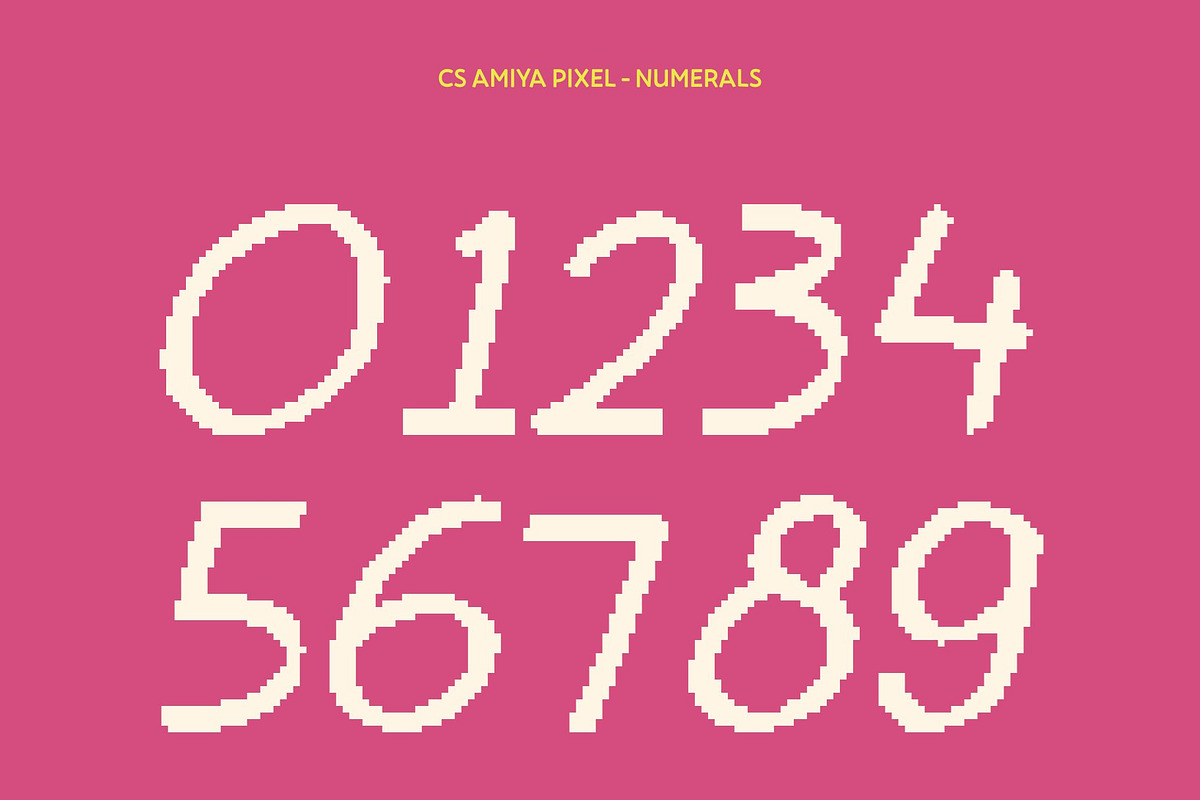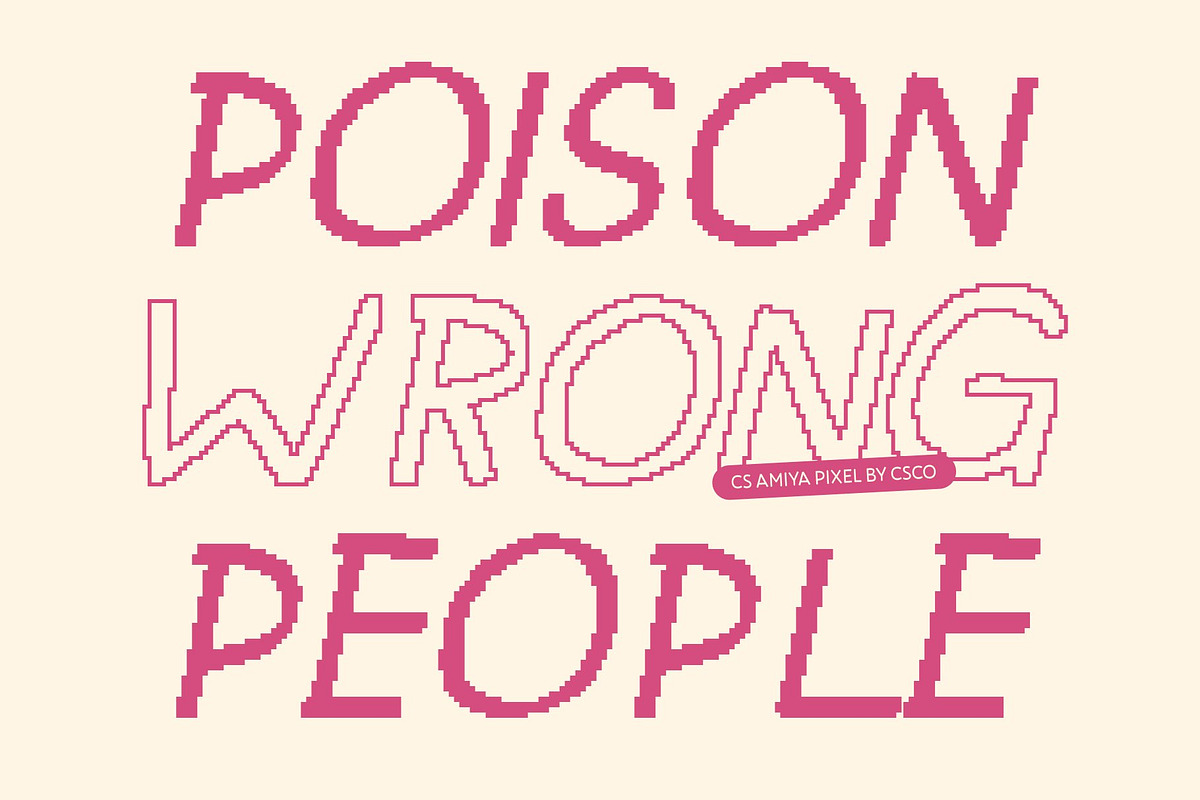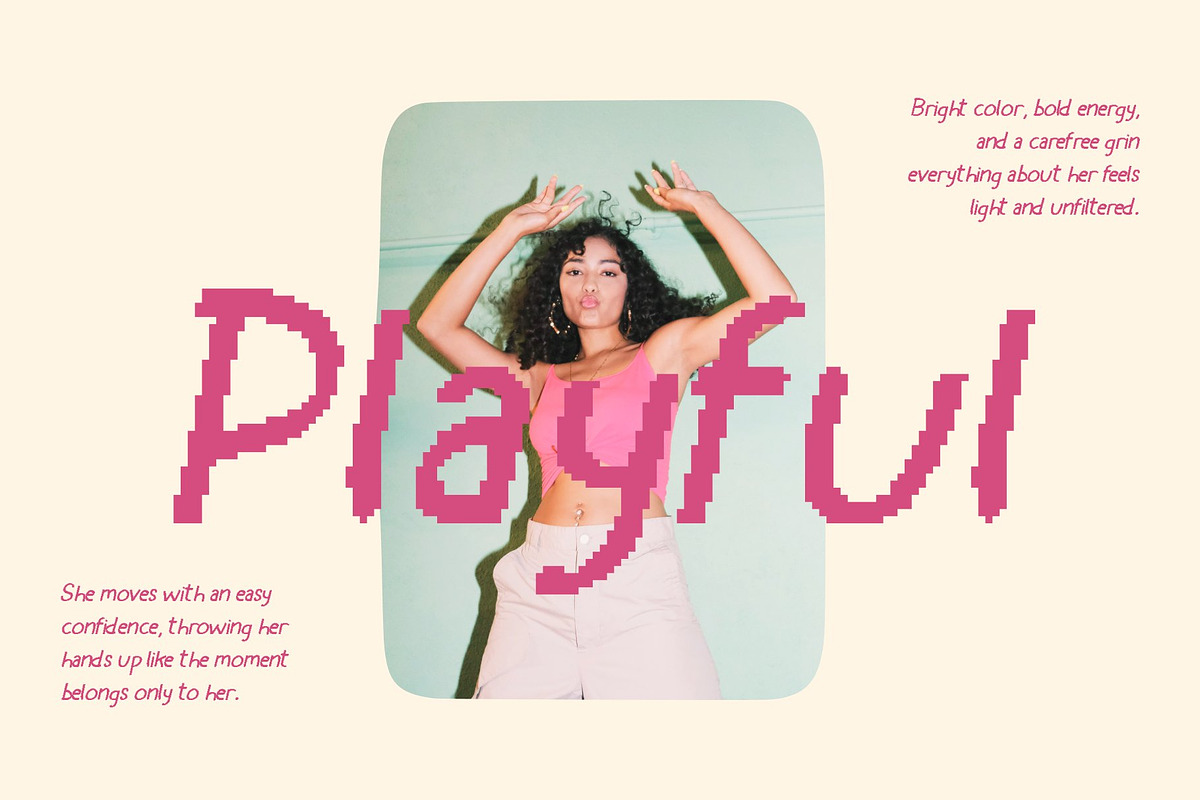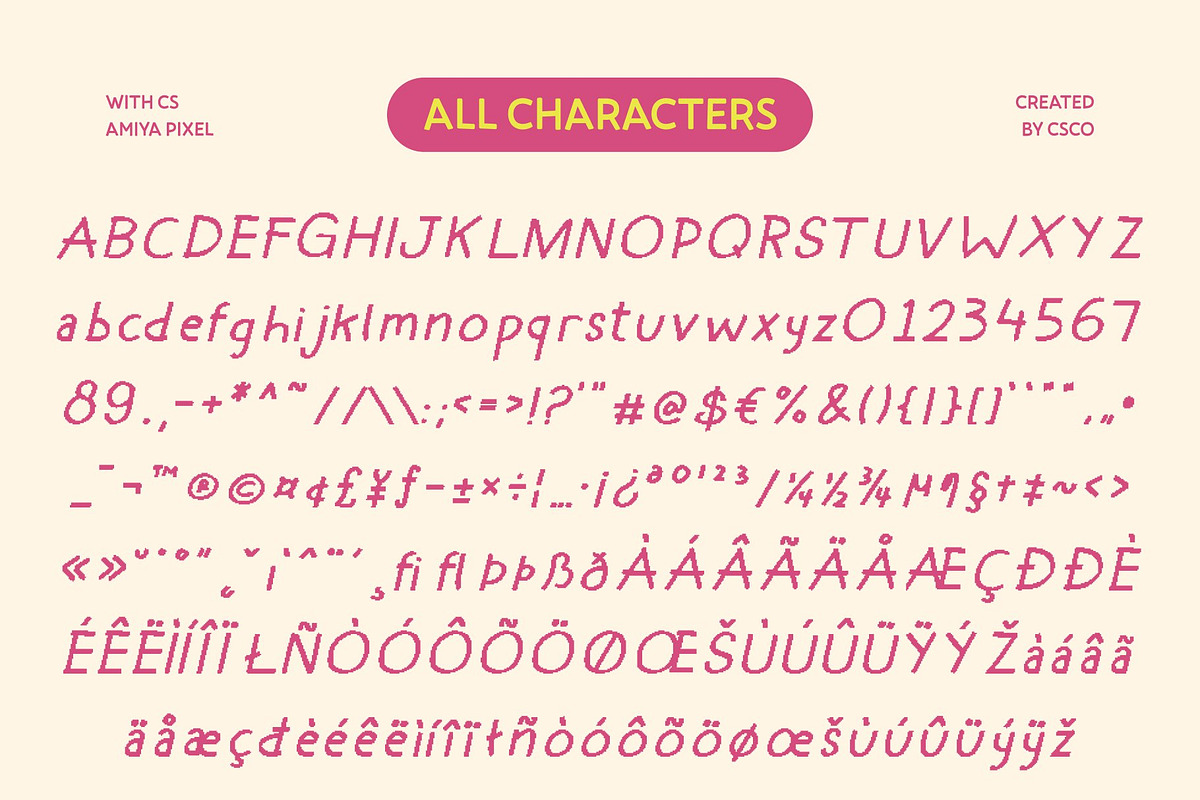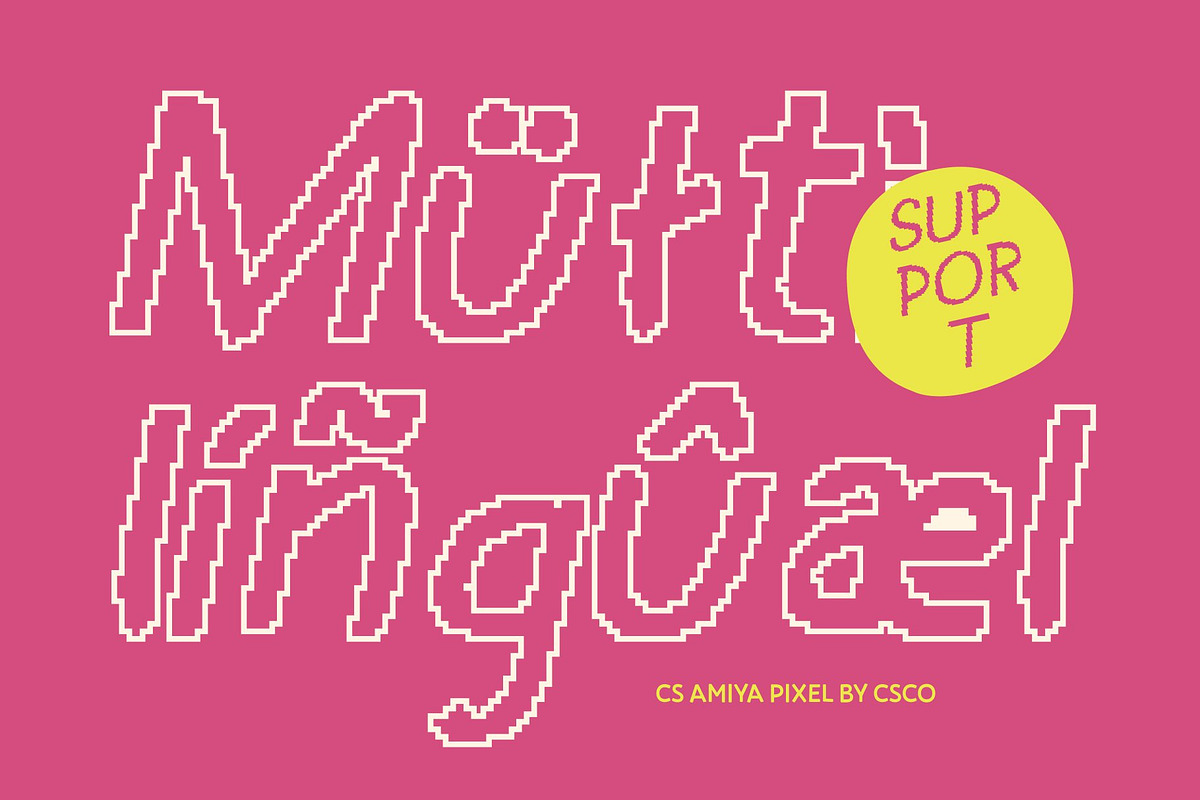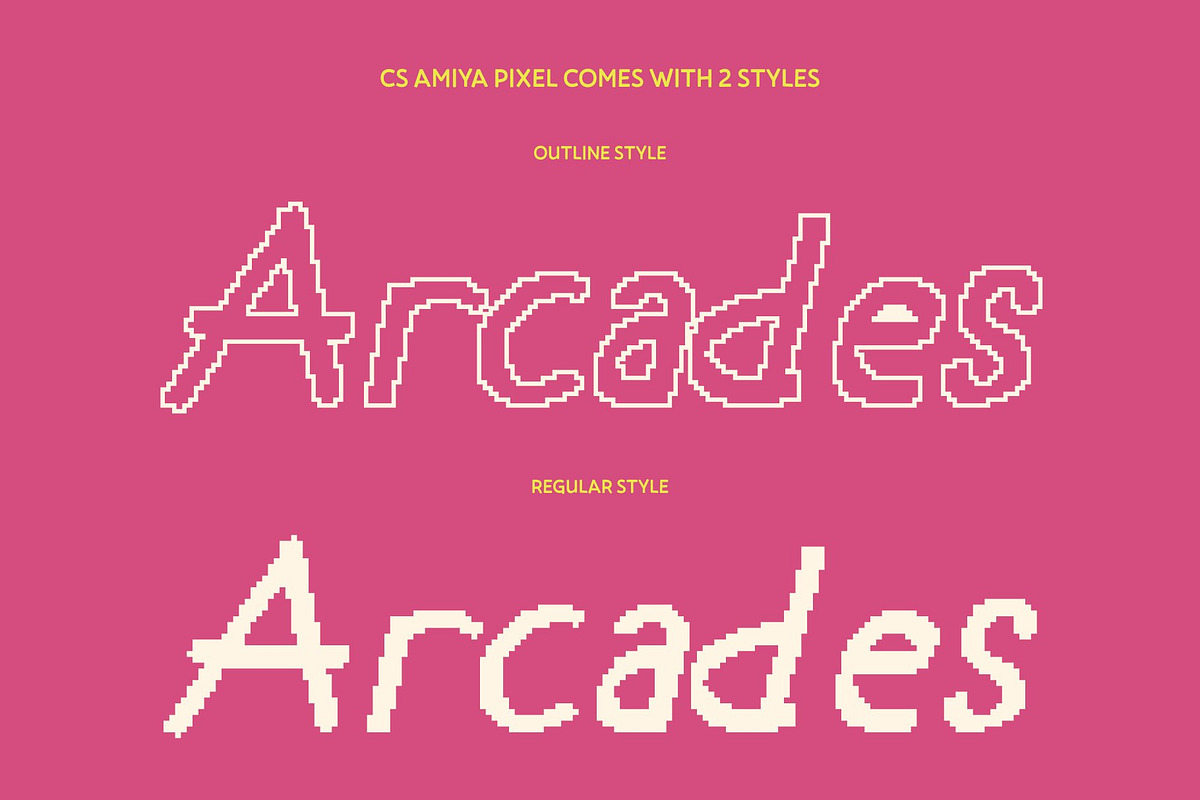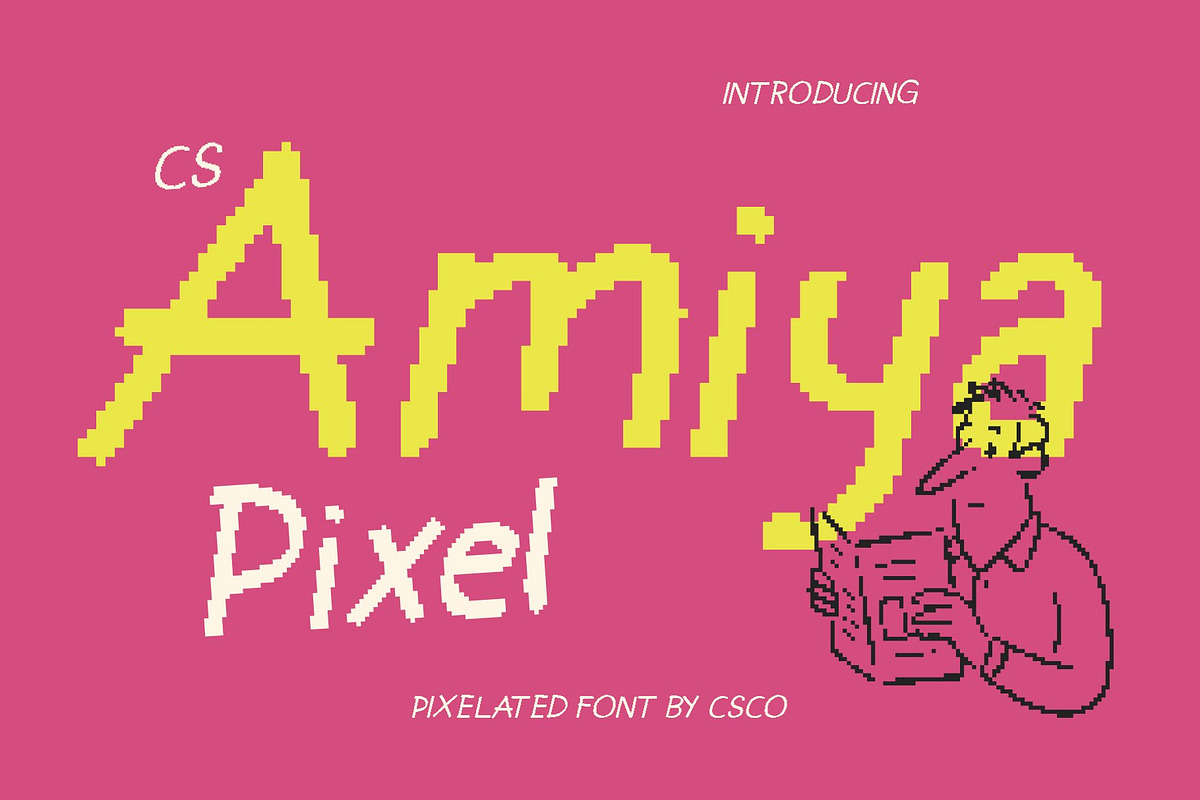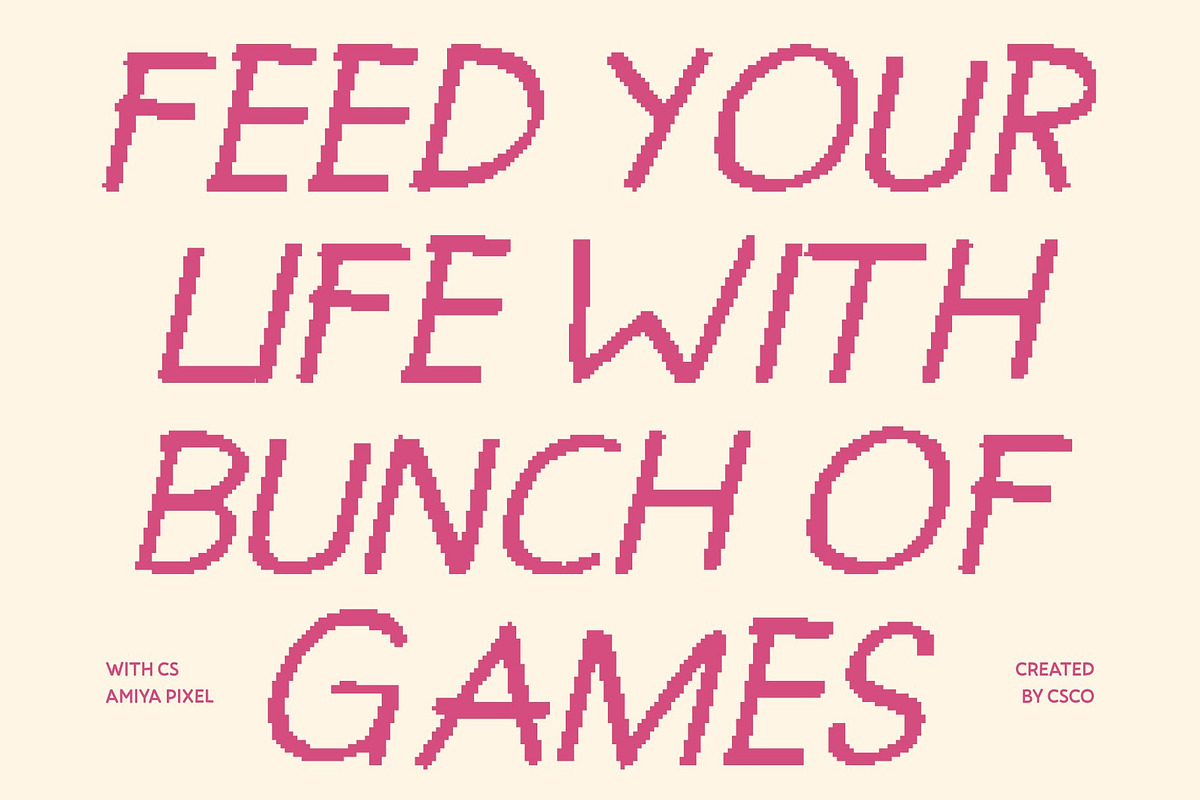
CS Amiya Pixel
CS Amiya Pixel – Expressive Handwritten Display with Geometric Charm
Handwritten Warmth Meets Geometric Style This is a handwritten-style display font that blends friendly expression with subtle geometric structure and distinctive pixel detailing. The pixel elements introduce an old digital character, giving the font a nostalgic retro feel while still appearing clean and modern. This fusion creates a unique balance between human warmth, digital precision, and playful personality.
Natural Strokes with an Authentic, Personal Feel The organic flow of the hand-drawn strokes brings an approachable and expressive character to every letter. Each curve feels naturally written, adding emotion and individuality to your text. Combined with pixel accents, this handcrafted quality evokes early digital aesthetics while keeping designs lively, human, and creatively engaging.
Pixel Geometry for Modern Retro Appeal While rooted in handwriting, this font incorporates geometric forms and pixel details that enhance structure and visual rhythm. These elements recall classic digital typography from early screens and games, yet are refined for contemporary use. The result is a font that feels retro and old-school digital, but still polished, readable, and modern.
Perfect for Branding, Posters, and Fun Editorial Layouts This font shines in branding, posters, packaging, and fun editorial layouts. Its mix of handwritten warmth, geometric balance, and pixel detail makes it ideal for logo design, creative headlines, lifestyle content, and retro-inspired digital visuals that aim to feel modern, nostalgic, and full of personality.